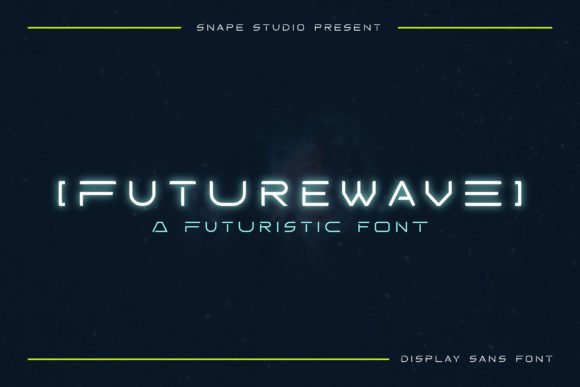
Unlocking the Cosmic Potential of Your Designs
Imagine you’re in the middle of a design project, and you’re struggling to find the perfect font to bring your futuristic concept to life. The cursor blinks on your screen, and you start to feel like you’re stuck in a time warp. But then, it hits you – the moment when everything falls into place, and your design vision starts to take shape.
Enter the Futurewave Font, a modern space-futuristic font that’s designed to transport your designs to another galaxy. This versatile font is perfect for technology, digital, and space-themed projects, and is sure to make your designs stand out from the crowd. With the Futurewave Font, you’ll be able to create logos, posters, book covers, and more that are out of this world.
Whether you’re a seasoned designer or just starting out, the Futurewave Font is a valuable addition to your toolkit. Its clean lines, futuristic feel, and endless possibilities make it the perfect choice for designers looking to push the boundaries of their creativity.
Futurewave Font Key Features
- Font Family: Futurewave is a sans-serif font family available in multiple weights and styles.
- Character Set: The font includes a comprehensive character set, including Latin, Cyrillic, and Greek alphabets, as well as a wide range of punctuation and symbols.
- Unique Characteristics: The font features a distinctive, futuristic aesthetic with geometric shapes and clean lines, making it ideal for modern and tech-related designs.
Futurewave Font Review
Overall, I think Futurewave is a solid font, but it has some quirks that set it apart from more conventional typefaces. ✨ One of its strengths is its futuristic feel, which is perfect for sci-fi, tech, or space-themed projects. It’s also surprisingly versatile, working well in both digital and print contexts.
Here are some things I like about Futurewave:
- ✨ Unique aesthetic that’s hard to find elsewhere
- ✨ Highly customizable, with a wide range of styles and weights
- ✨ Suitable for a variety of applications, from branding to publishing
However, I do have some reservations about Futurewave:
- ⚠️ Some of the letterforms can be a bit awkward, particularly at smaller sizes
- ⚠️ The font may not be suitable for projects that require a more traditional or formal look
- ⚠️ Some users may find the font’s futuristic feel to be over-the-top or gimmicky
Overall, I think Futurewave is a great choice for designers who want to add a touch of futurism to their projects. While it’s not perfect, it’s a unique and interesting font that can add some much-needed personality to a design.
Getting the Most Out of Futurewave Font
Futurewave Font is ideal for creating futuristic and high-tech designs. To get the most out of it, use it in conjunction with bold colors and striking graphics. Experiment with different font sizes and styles to create visual interest and hierarchy in your design.
Futurewave Font is commonly used in:
- Science fiction and technology-themed designs
- Video game and app interfaces
- High-tech marketing materials
- Futuristic logos and branding
What is the recommended font size for using Futurewave Font?
The recommended font size for using Futurewave Font is between 12pt and 24pt. This range allows the font to be legible and visually appealing in a variety of design applications. However, you can use the font at any size that suits your design needs.